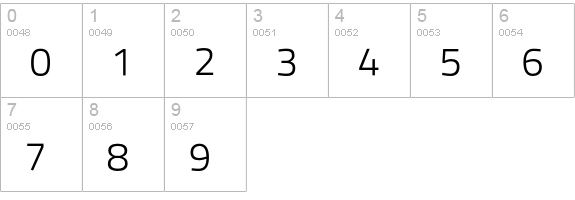
TitilliumText22L-Light Font Details
TitilliumText22L-Light is a refined, elegant variant in the TitilliumText22L typeface family \xE2\x80\x94 well suited to elegant body text, refined sub-headings, and luxury branding.
TitilliumText22L-Light is a modern and elegant sans-serif font that exudes sophistication and clarity in its design. With its slender letterforms and subtle curves, this font is perfect for conveying a sense of minimalism and professionalism in any project. The light weight of the font adds a touch of delicacy while maintaining excellent readability, making it ideal for body text or headlines. What sets TitilliumText22L-Light apart is that it is not only visually appealing but also freely available for download at FontsMarket.com. This means that you can easily access and use this high-quality font for both personal and commercial purposes without any cost. Enhance your designs with the timeless beauty of TitilliumText22L-Light and enjoy the versatility and elegance it brings to your projects.